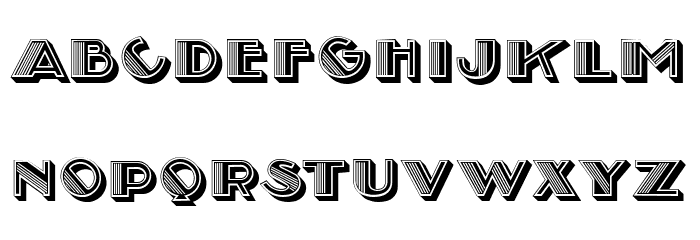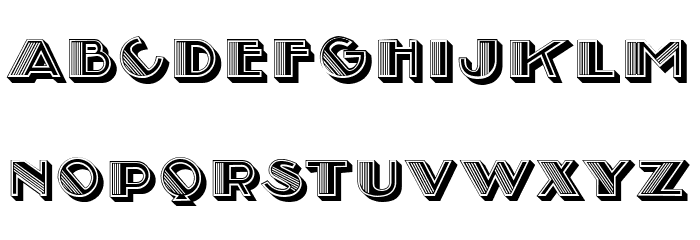
Adriatica Black Regular Font
This font features a bold, decorative style with a unique 3D effect created by its layered, shadowed design. The uppercase letters are characterized by their thick, solid forms combined with intricate line patterns that give a sense of depth and movement. The font's geometric shapes and sharp angles contribute to its modern and dynamic appearance. Its bold presence makes it suitable for attention-grabbing headlines and titles. The font's design is consistent across all characters, maintaining a cohesive and striking visual impact.
A bold, decorative font with a 3D layered effect and geometric shapes.
- Proposed Projects: Ideal for posters, logos, branding, and any project requiring a strong visual impact.